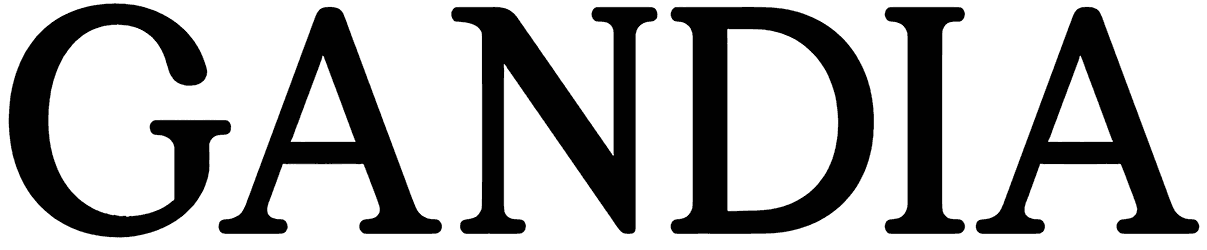
Gandia Font
When you have a plan to keep your design simple and humble, a serif font like this one will be a perfect selection. The Gandia font covers all characters, allowing you to use it for both short and long texts. We invite you to set this magazine font for your new creative project, such as a fashion event flyer, and enjoy the outcome.